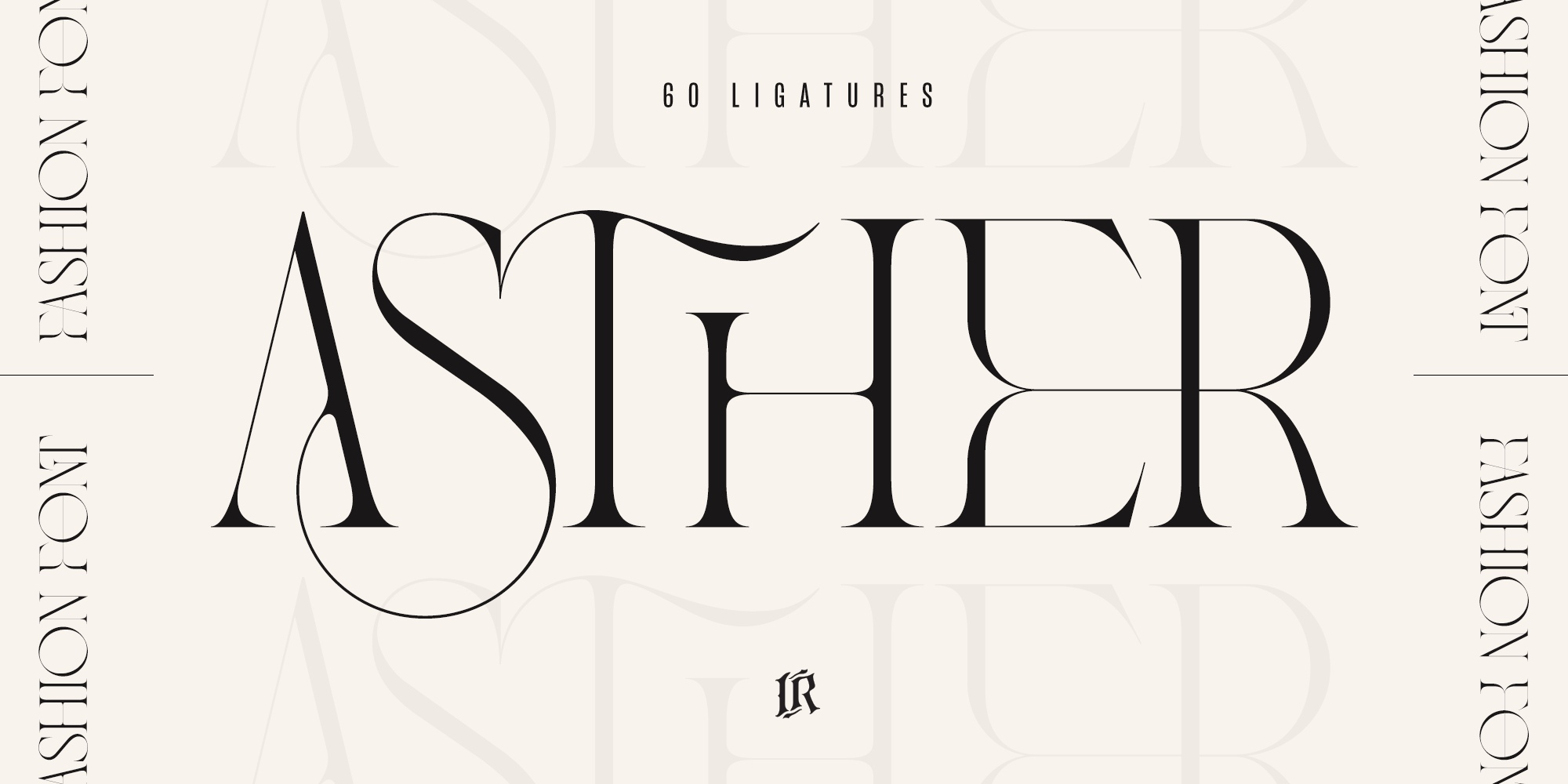
If you're looking for a modern, elegant serif typeface with a refined, contemporary appeal, Asther Font Free Download is the perfect choice for your creative projects. This stylish font features clean, sophisticated letterforms with high contrast between thick and thin strokes, making it ideal for branding, logos, editorial layouts, packaging, and high-end marketing materials that require a polished and professional look.
Asther Font offers excellent readability while maintaining its elegant character, making it versatile for both print and digital applications. It includes multilingual support and a variety of glyphs, giving designers the flexibility to create classy, high-quality typography. Whether you're building a luxury brand identity or designing professional publications, this font delivers timeless sophistication and modern flair.